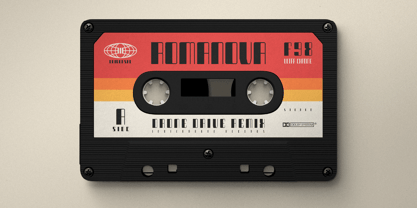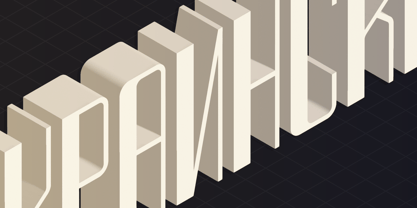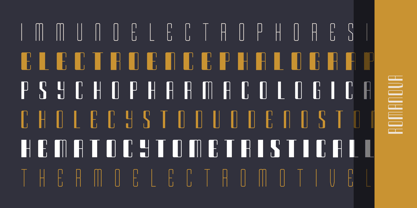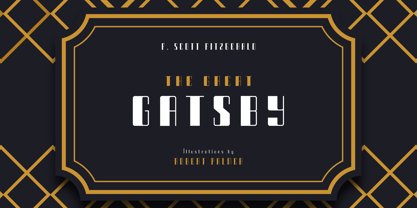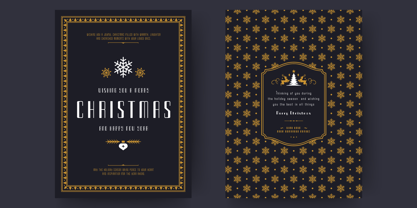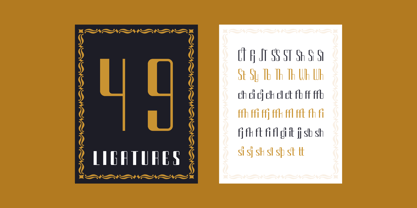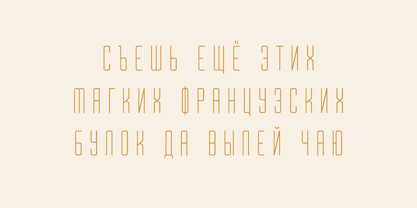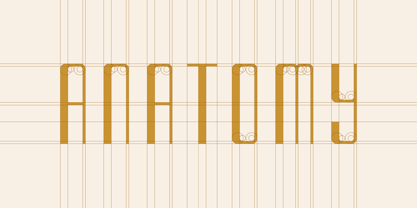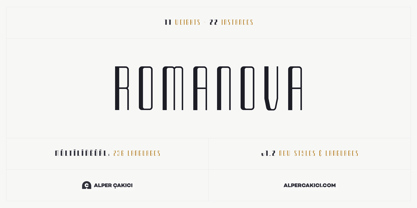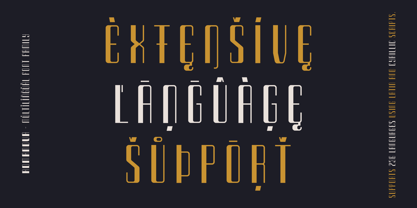
Romanova
by AlperCakici
The Romanova Font Family was designed by Alper Çakıcı and published by AlperCakici. Romanova contains 22 styles and family package options. More about this family
🌌 Romanova – A Luxury Geometric Typeface Romanova is a sleek and elegant typeface crafted with geometric precision and luxurious curves with 236 language support. Designed to balance modern minimalism with timeless sophistication, it is ideal for high-end branding, fashion editorials, packaging, and creative projects that demand both style and readability. Whether you’re building a luxury brand identity, designing a premium magazine spread, or creating digital experiences that need refined clarity, Romanova brings elegance and professionalism to every word.